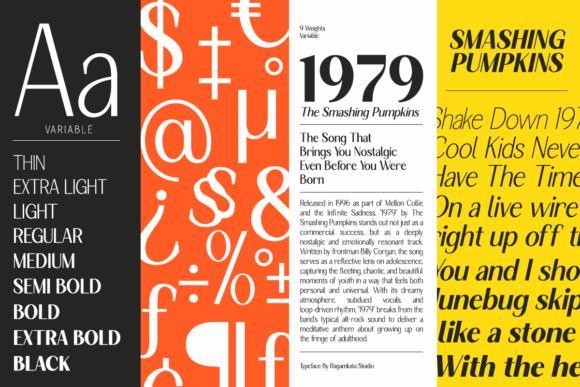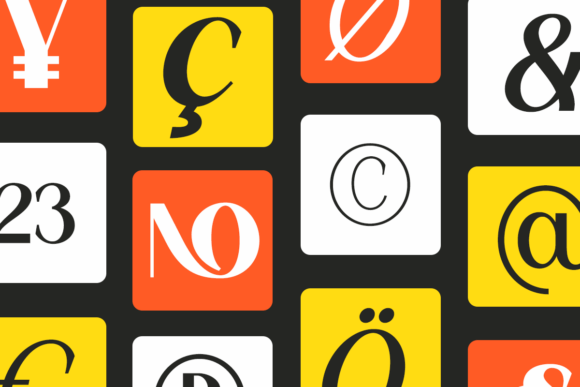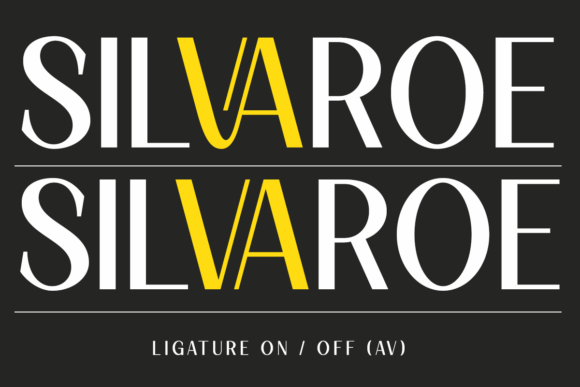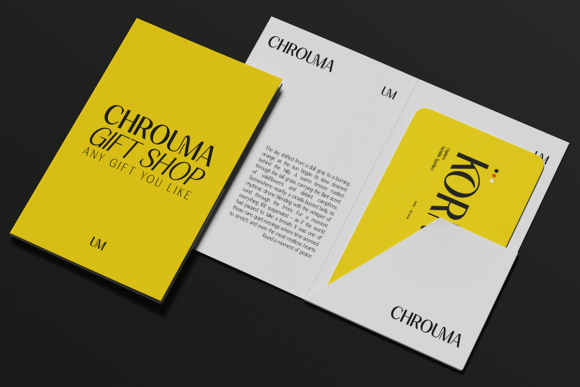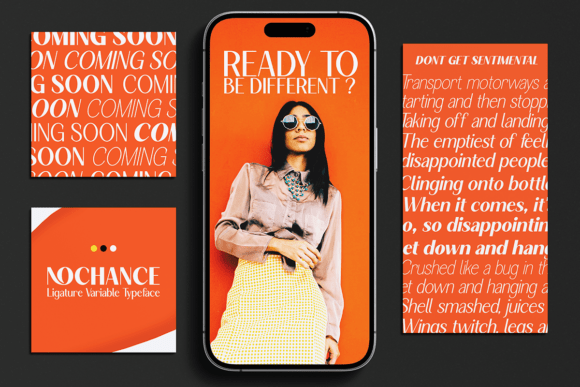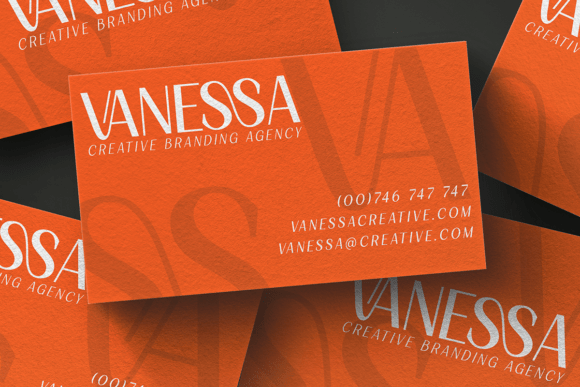
Introduction to Korners Font
Korners is a sleek, modern sans-serif typeface with high contrast and geometric elegance.
Featuring stylistic ligatures and 9 versatile weights from thin to black, Korners is built for bold branding, editorial layouts, fashion headlines, and luxury packaging Its clean lines and sharp curves deliver a professional yet creative edge.
Key Features of Korners Font